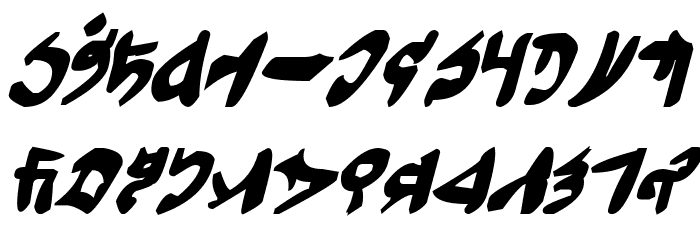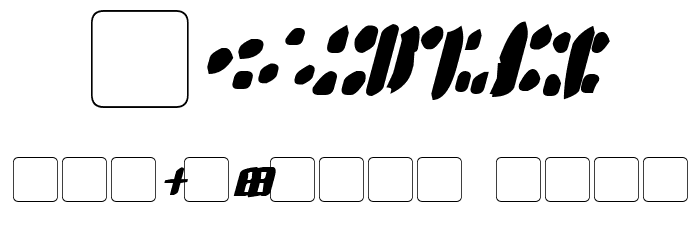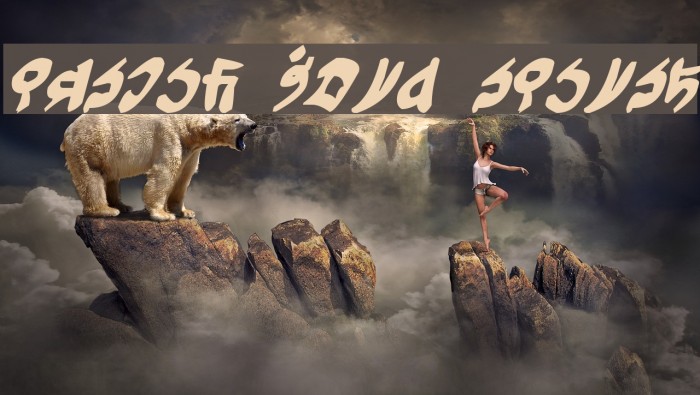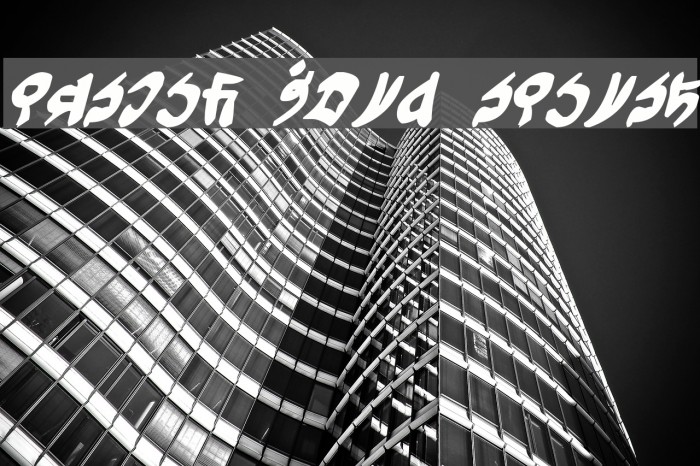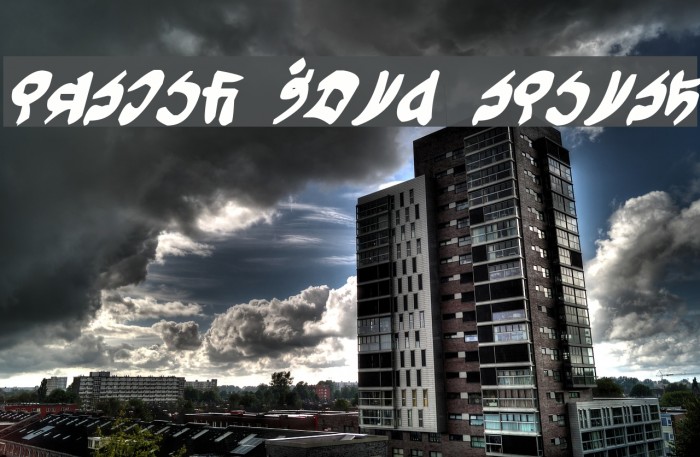
Tuigan Bold Italic Font
This font features a bold and italicized style with a strong, dynamic presence. The characters are designed with a brush-like appearance, giving them a fluid and energetic feel. The strokes are thick and consistent, creating a sense of movement and urgency. The overall design is highly decorative, making it suitable for eye-catching displays. The font's unique style is characterized by its slanted orientation and bold weight, which adds emphasis and impact to any text. The spacing between characters is tight, enhancing the cohesive look of the text.
A bold, italicized font with a brush-like, dynamic style.
- Proposed Projects: Ideal for posters, logos, and headlines that require a strong visual impact.
- Character Spacing: Tight